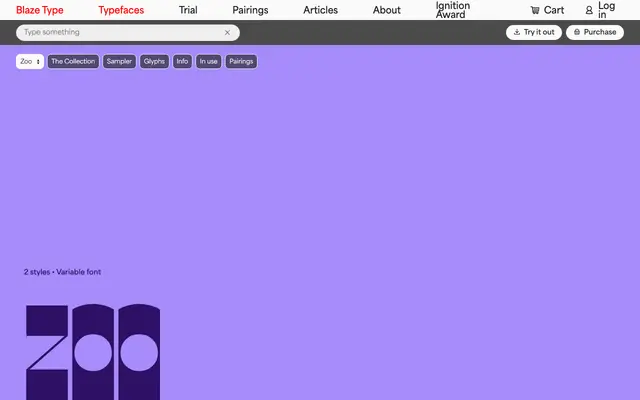
Zoo
Blaze Type · Quentin Coulombier · 2018
A high-contrast display family by Quentin Coulombier, drawn from the vinyl sleeve lettering of a French jazz band and built around the asymmetric geometry of the letters Z and O.
Originally derived from the lettering on records by the French jazz group Zoo, the design uses the Z and O as structural templates for the entire character set. The asymmetrical distribution of forms gives the family a rhythmic, dancing quality suited to editorial and identity work at display sizes. Two width variants, Condensed and Extended, are available as variable fonts.
A high-contrast display typeface with strong asymmetrical construction, combining sharp and round forms inspired by vinyl sleeve lettering. Its dramatic weight contrast and jazz-inflected character place it firmly in the display category.